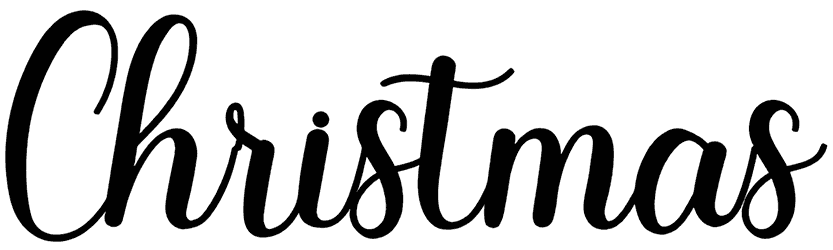
Christmas Font
With a natural beauty display of manuscript letters, you can draw a lot of attention to your design. As a handwritten font, Christmas shows twisty and smooth lettering that can be harmonized with various ideas. This Christmas font with an almost full cover of characters is an ideal choice for your novel projects, such as invitations, planners, mugs, postcards, and so on.